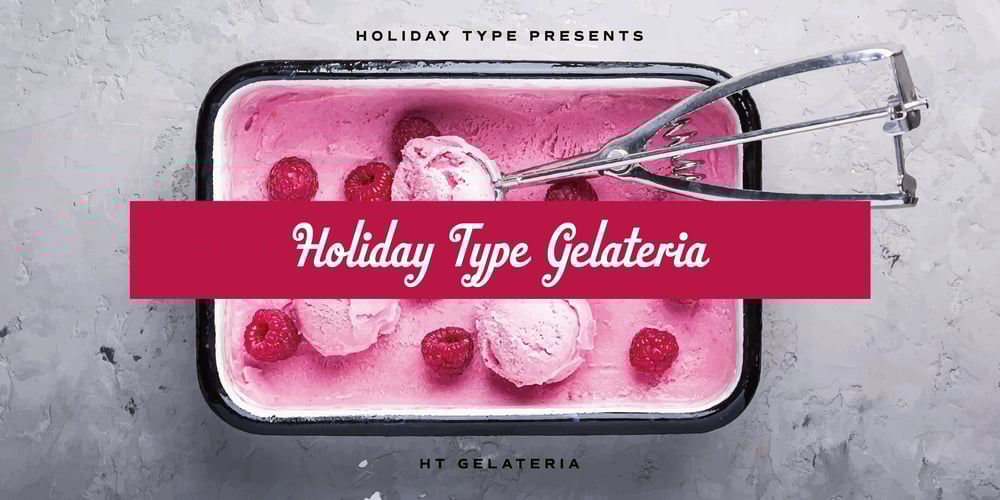
HT Gelateria
HT Gelateria font
HT Gelateria Font Family was designed by Ryoichi Tsunekawa and published by Dharma Type. HT Gelateria contains 1 styles and family package options. Gelateria is characterized by its dots and tails. This font is as a whole smooth and elegant. But because its dots and end of the tails are little points, Gelateria impressed you very much. Holiday Type Project offers retro hand drawing scripts. Inspired by retro script on shopfront lettering, wall paint advertisements in Italy around 1950s. Check out the script fonts from Holiday Type!